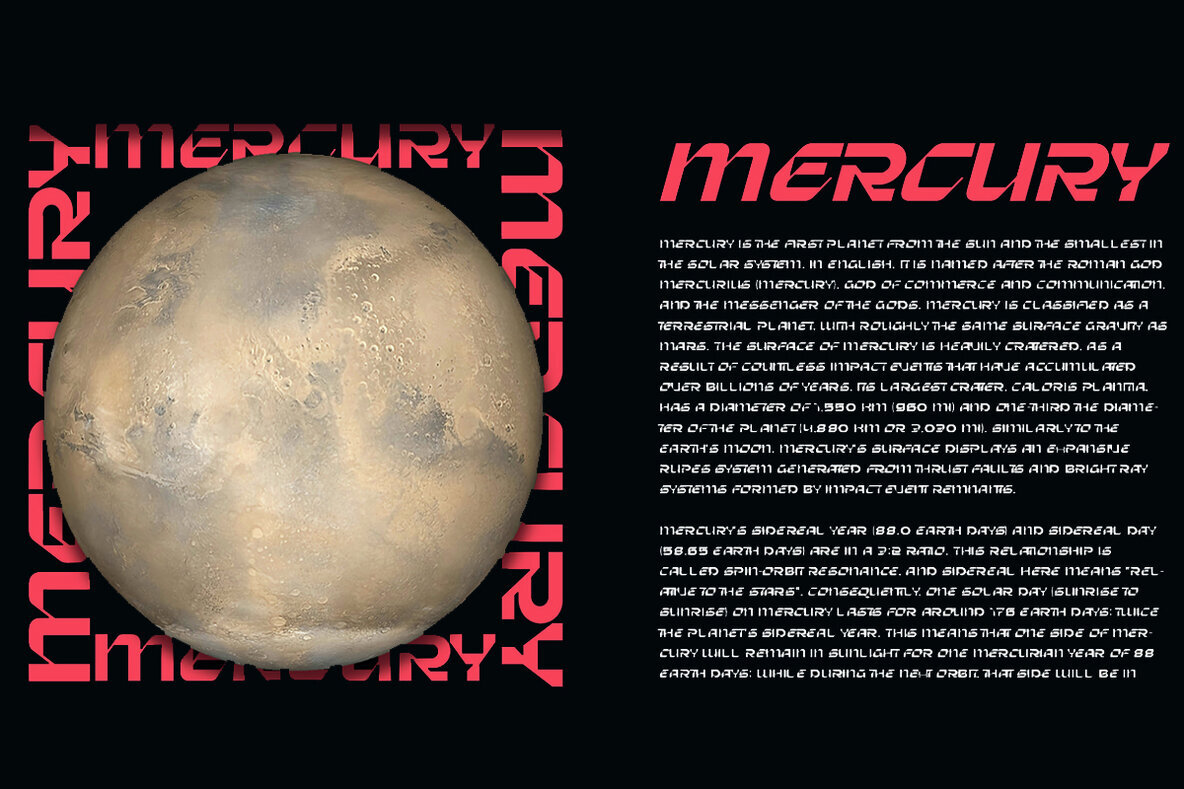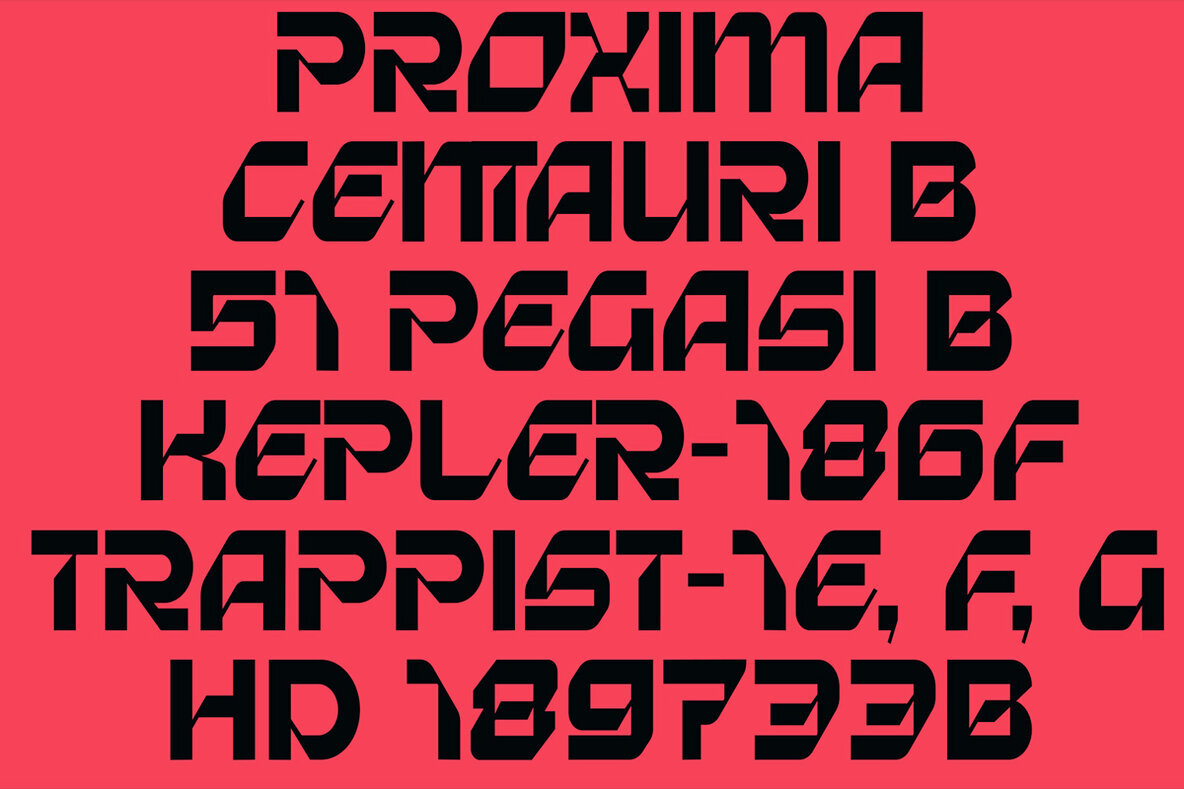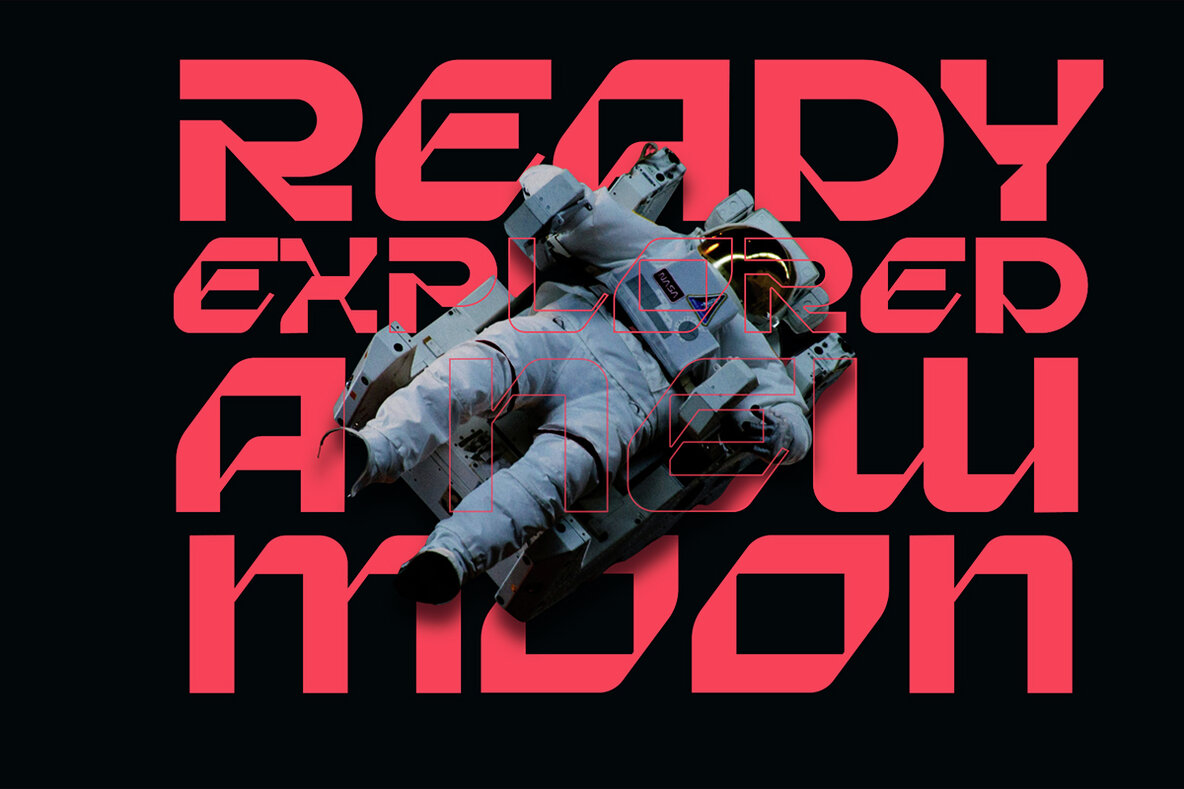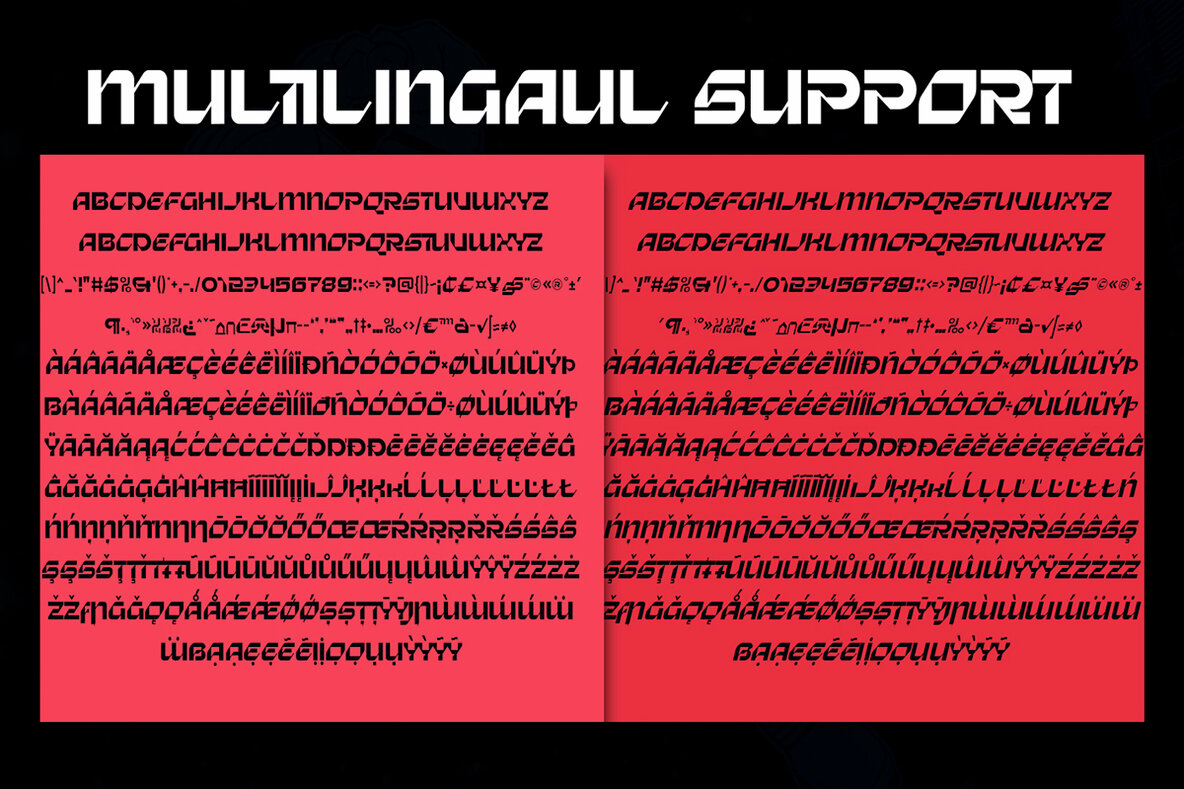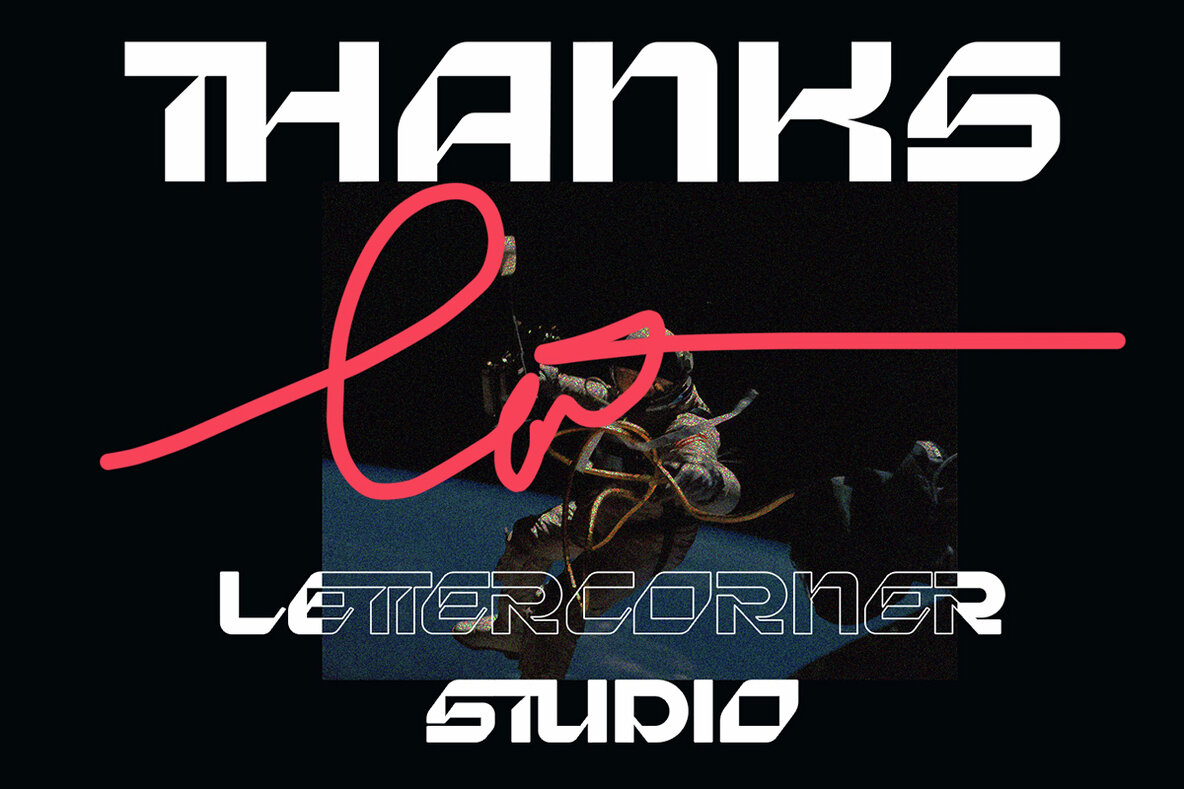
Starion Font
Starion is a free sans serif font designed by Lettercorner Studio, offering a futuristic and modern aesthetic. This typeface features a comprehensive set of both uppercase and lowercase characters, making it versatile for various uses. Starion is not only visually appealing but also functional. It includes multilingual support, numbers, and punctuation, ensuring broad applicability in numerous design contexts.Starion: Futuristic Sans Serif Font
Features and Applications